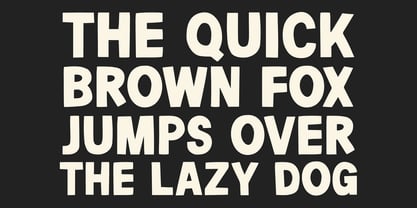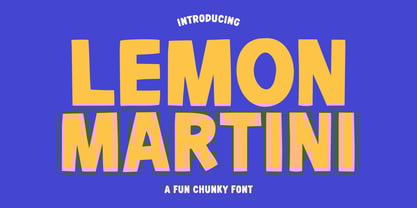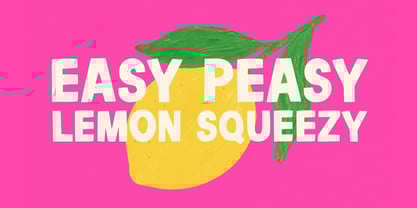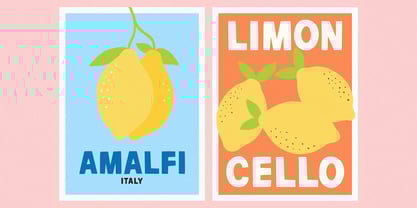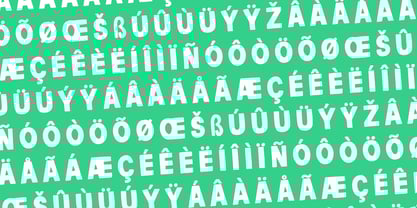
Lemon Martini
by Happy Type Club
The Lemon Martini Font Family was designed by Isabel Clarke and published by Happy Type Club. Lemon Martini contains 1 styles. More about this family
Lemon Martini is a fun chunky bold typeface perfect for any fun quirky design work! This font can be used for anything such as t-shirt designs, phone cases, greeting cards, invitations, mugs and so much more! Get creative!